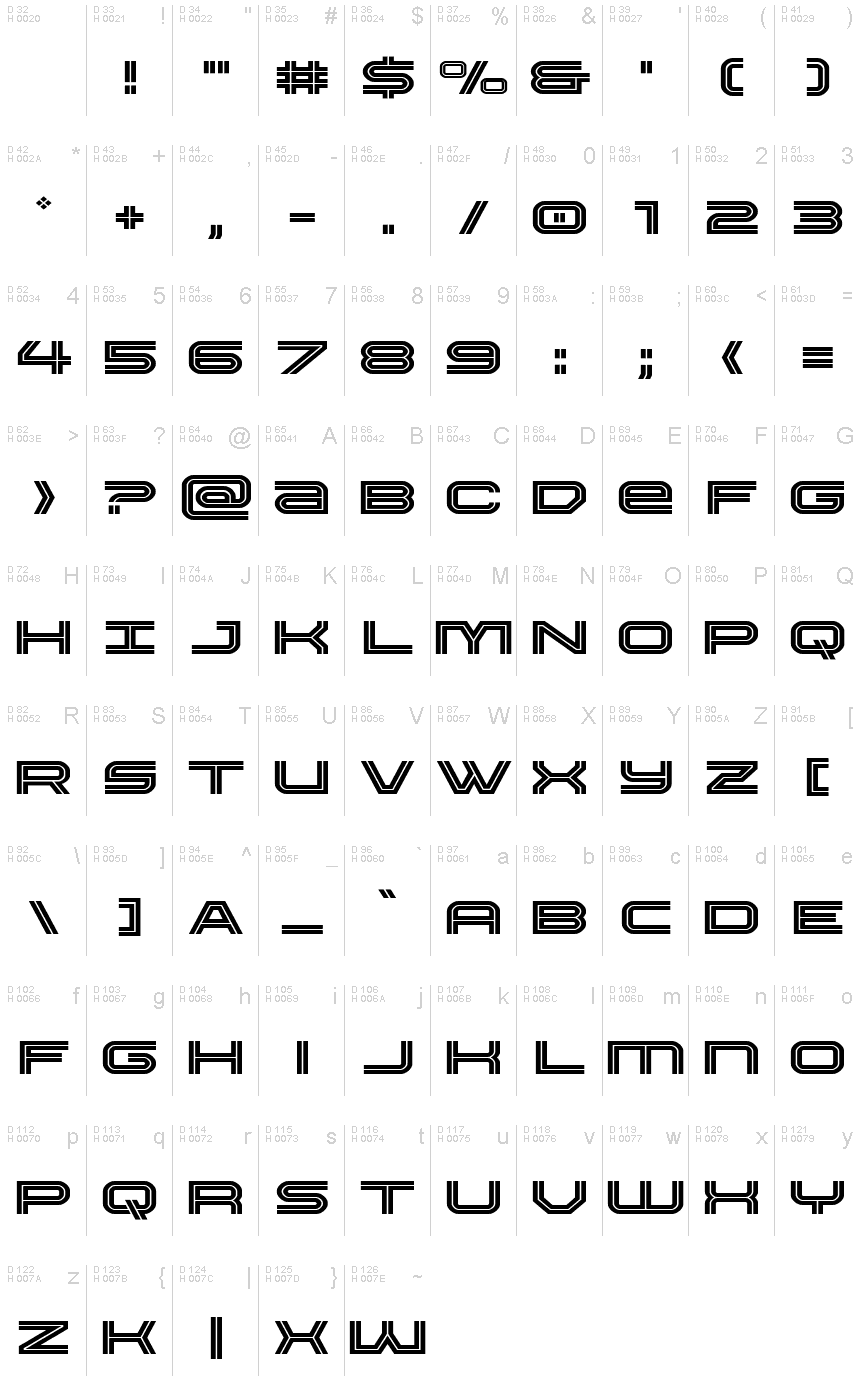
Gran Torino Expanded
Introducing Gran Torino Expanded, a bold display font from Daniel Zadorozny. Its techno style makes it perfect for any cutting-edge project, from modern web design to sci-fi movie posters.